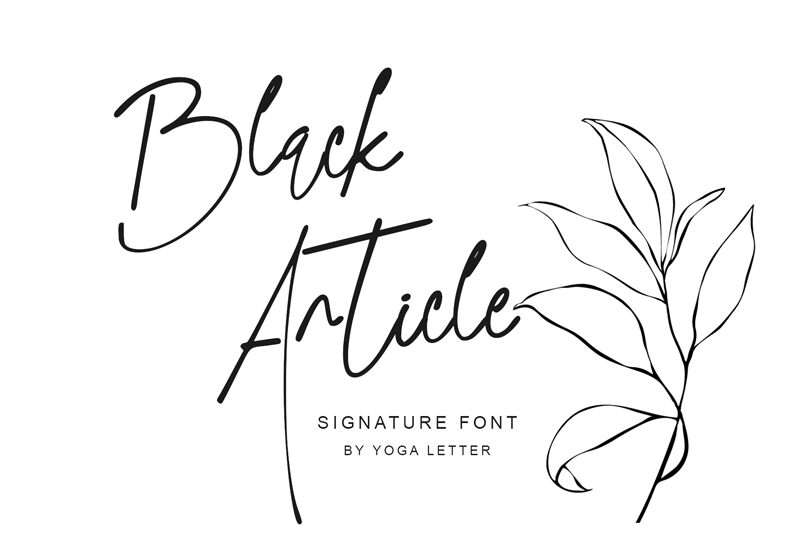
Black Article
\nBlack Article font is a free handwritten font designed by Yoga Letter. With elegant lines and smooth curves, it brings a contemporary touch to any project along with an expressive ink-on-paper feel. This thin font delivers sophisticated quality where each character seems to naturally evolve from the previous one. This seamless flow of letters and interactions make Black Article ideal for readable, highly noticed texts.
Use Black Article in posters, invitation cards, personalized gifts brand identity designs or apps’ names. It can further be combined with presentations, booklets design work, stamps on paper sheets, photo overlays, etc. Another common field of application involves packaging products like luxury brand electronics and sanitary items such as hand sanitizers towels napkins tissues among others medical/hygienic-related products people use daily but rarely pay close attention too unless coupled brilliantly alongside beautiful thoughtful typography!